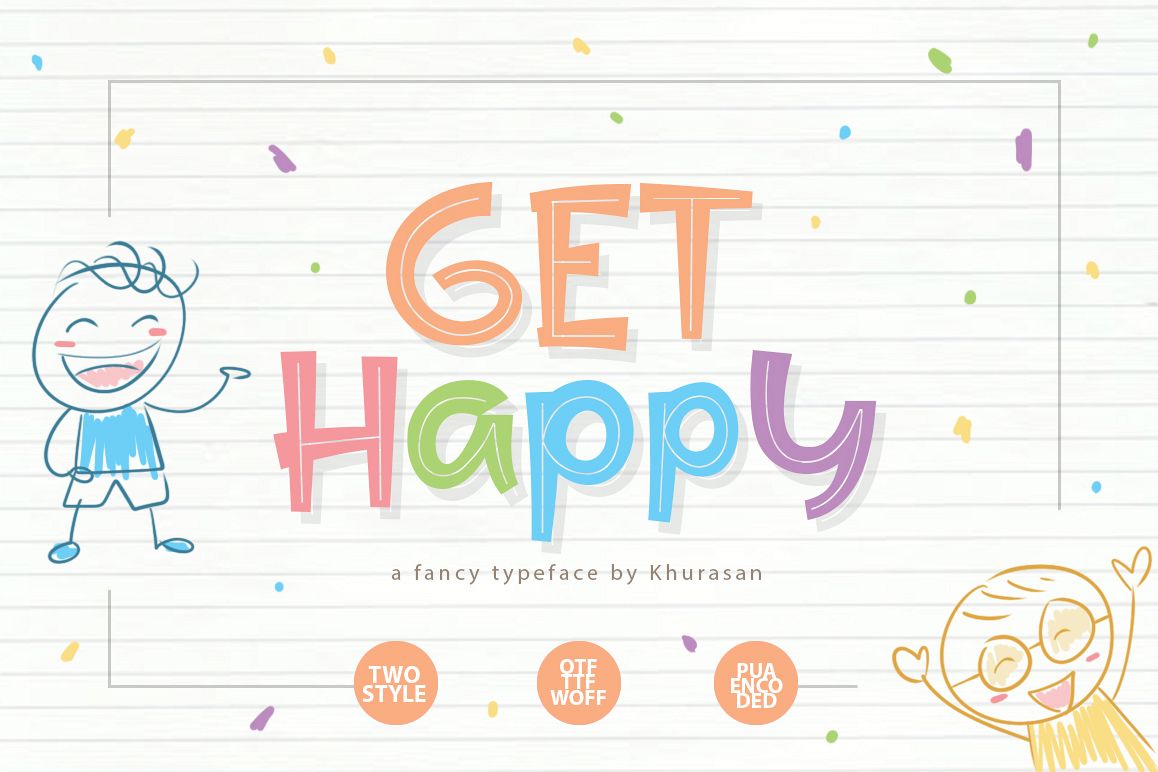
Get Happy font a display typeface awesome character with 2 different style, regular and solid. Get Happy font it’s perfect for namecard, poster, logo, magazine, cover, banner, tshirt and headers, or even large-scale artwork.